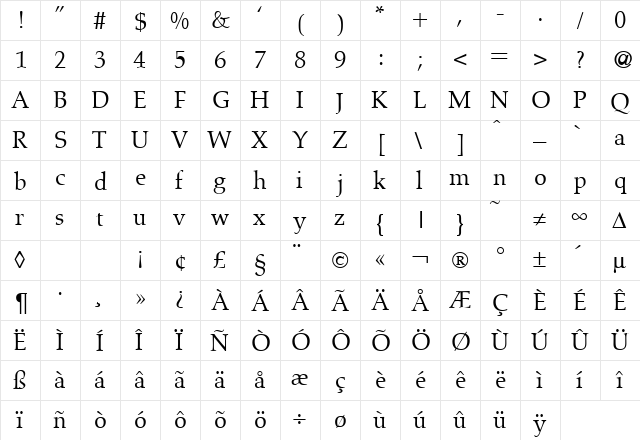
Aldebaran Regular
Design Context for Aldebaran Typeface
Aldebaran is a composed and adaptable typeface that performs quietly and consistently across a wide range of design contexts.
Pro Tip: Use Aldebaran in both headline and body roles to test its range before committing to a single application.